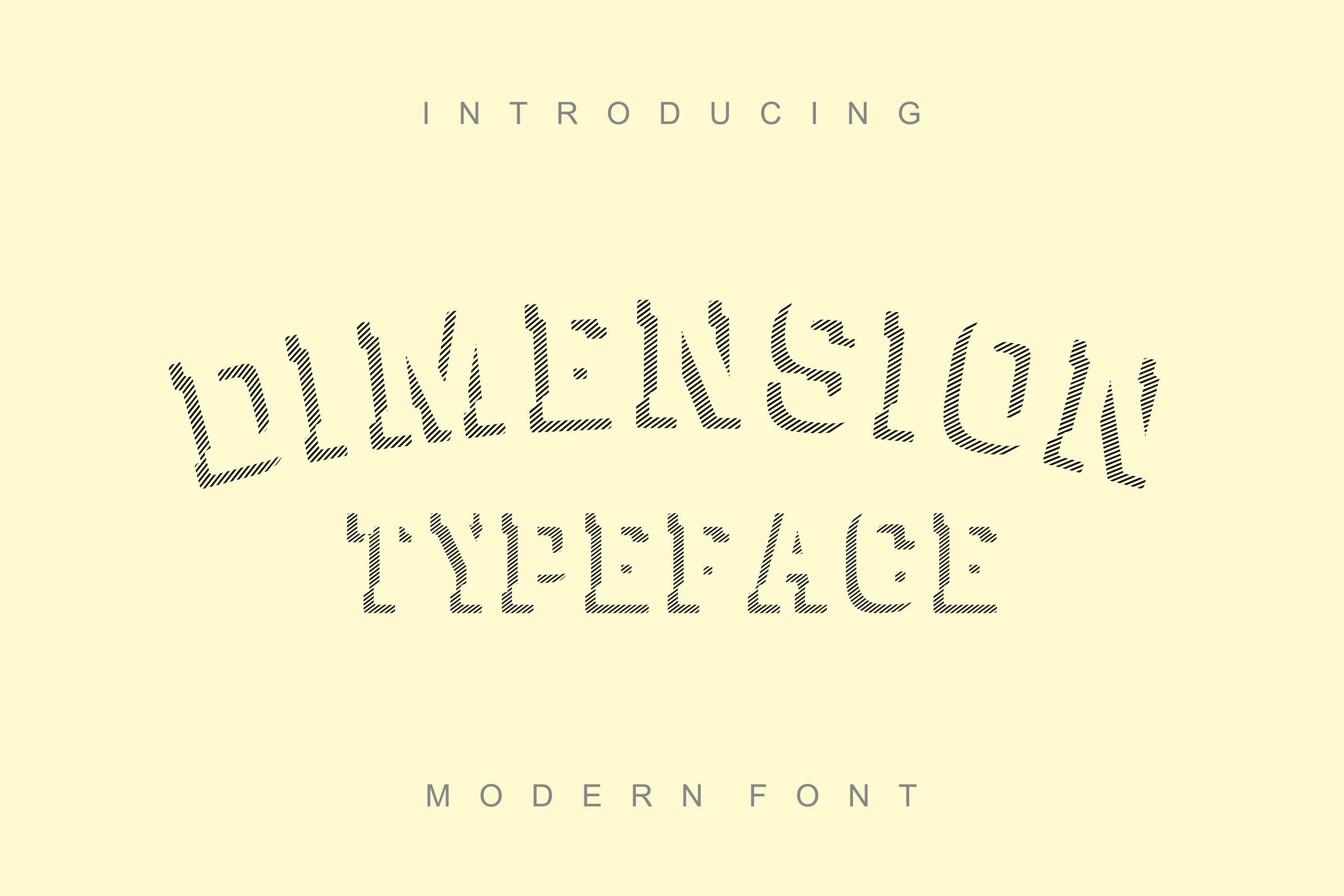
Dimension - striped font
Dimension is the new striped shadow typeface with interesting 3D illusion. This font is for designers who can deal with display modern fonts and can create a stunning design works with beautiful modern piece of art. Try, experiment, make an eye-catching design, satisfy your customers with new and attractive display font. Dimension © 2018